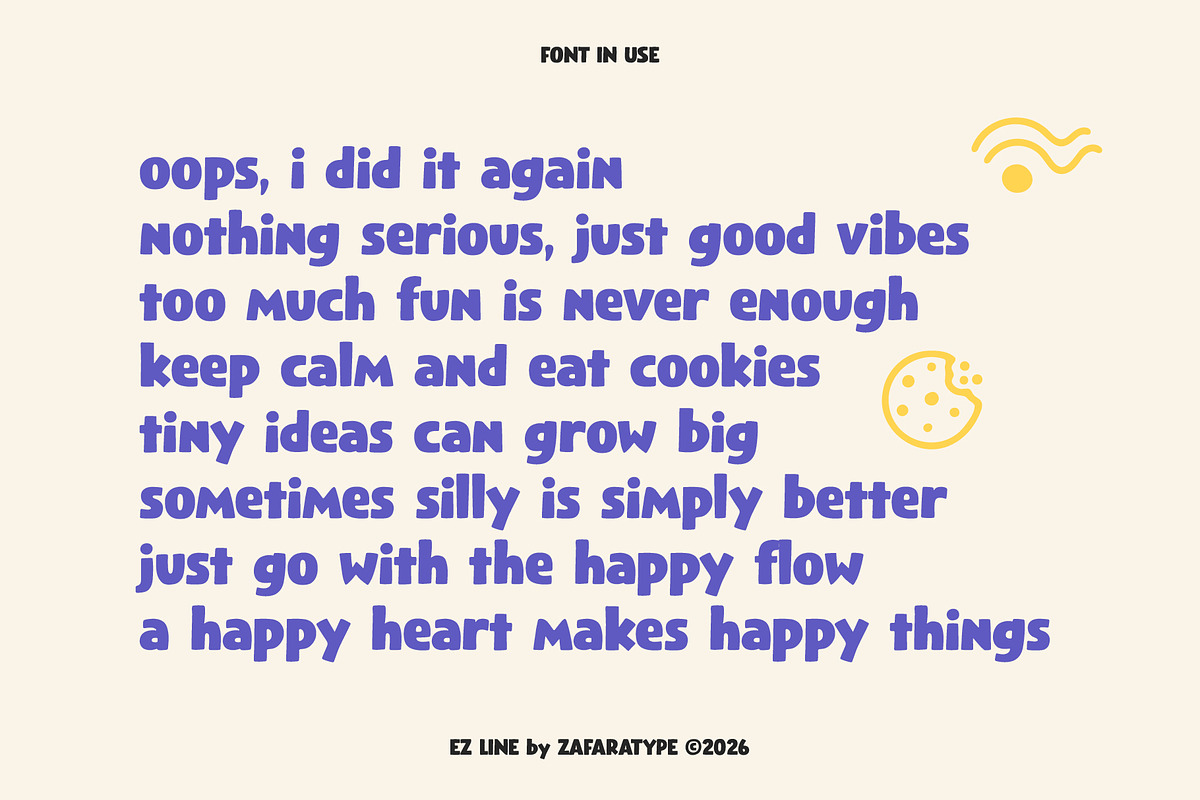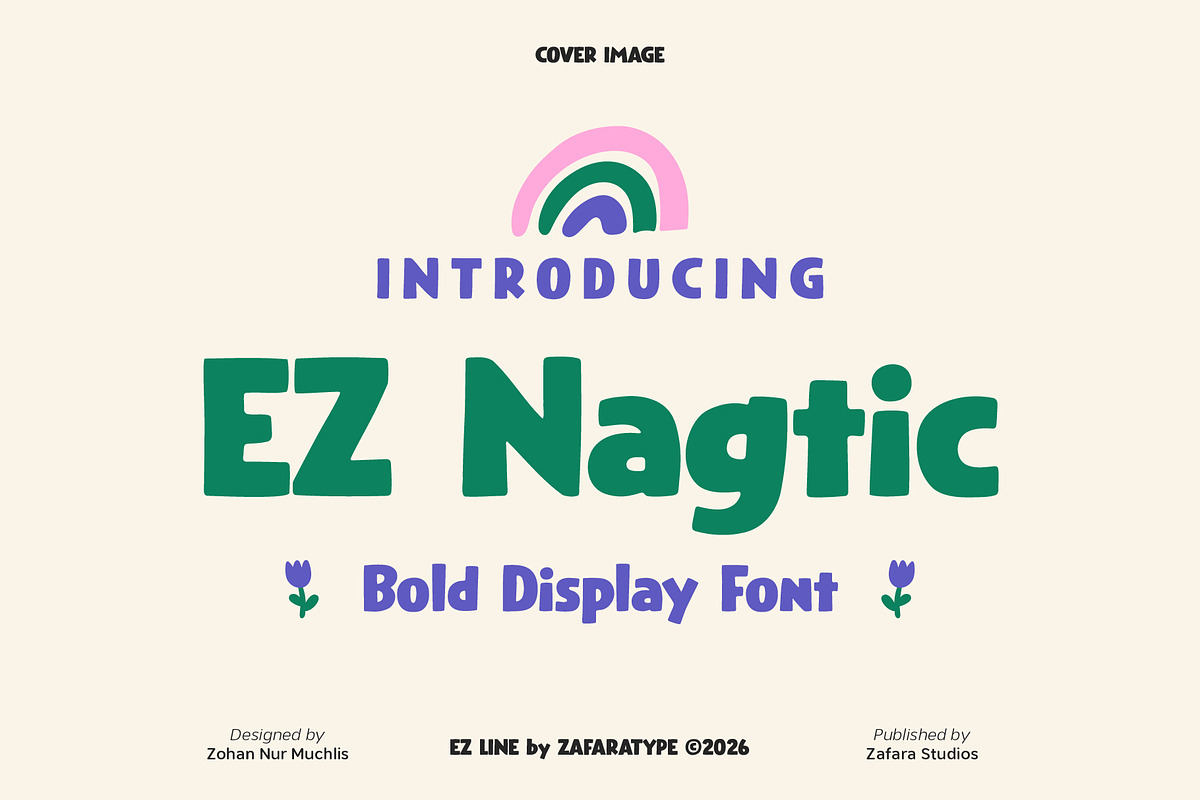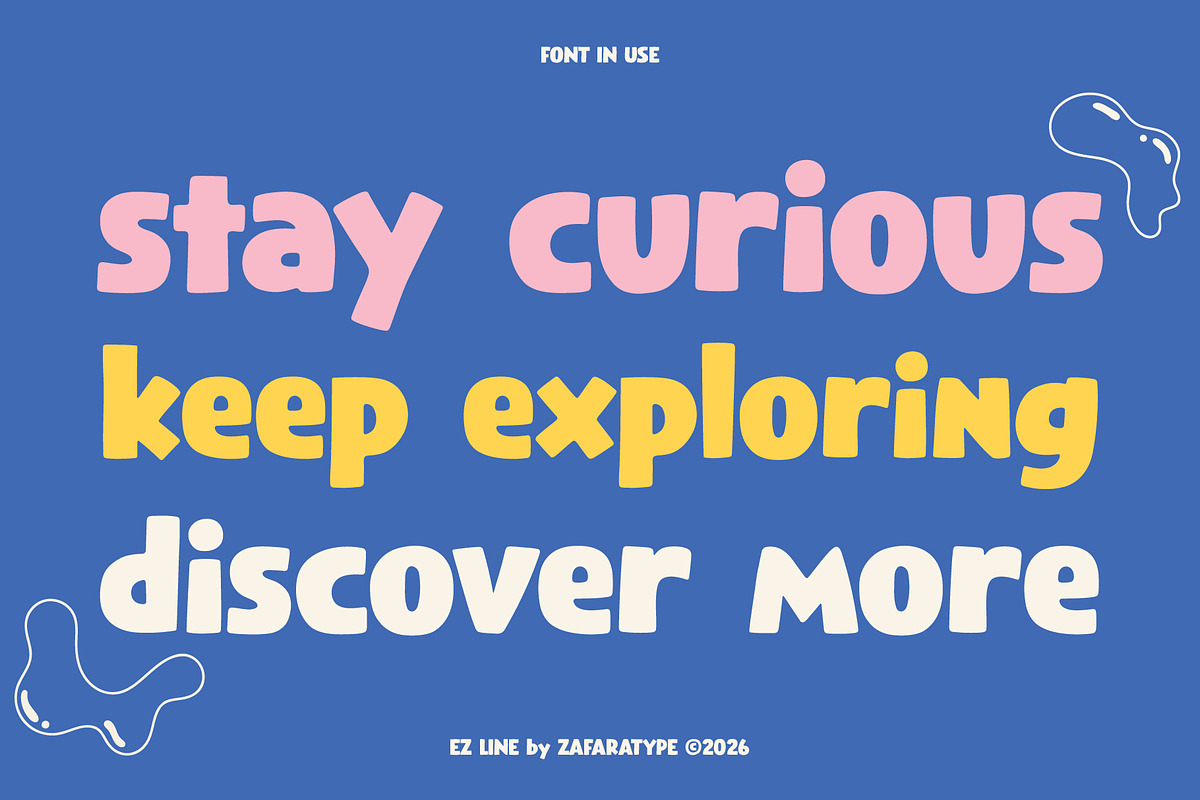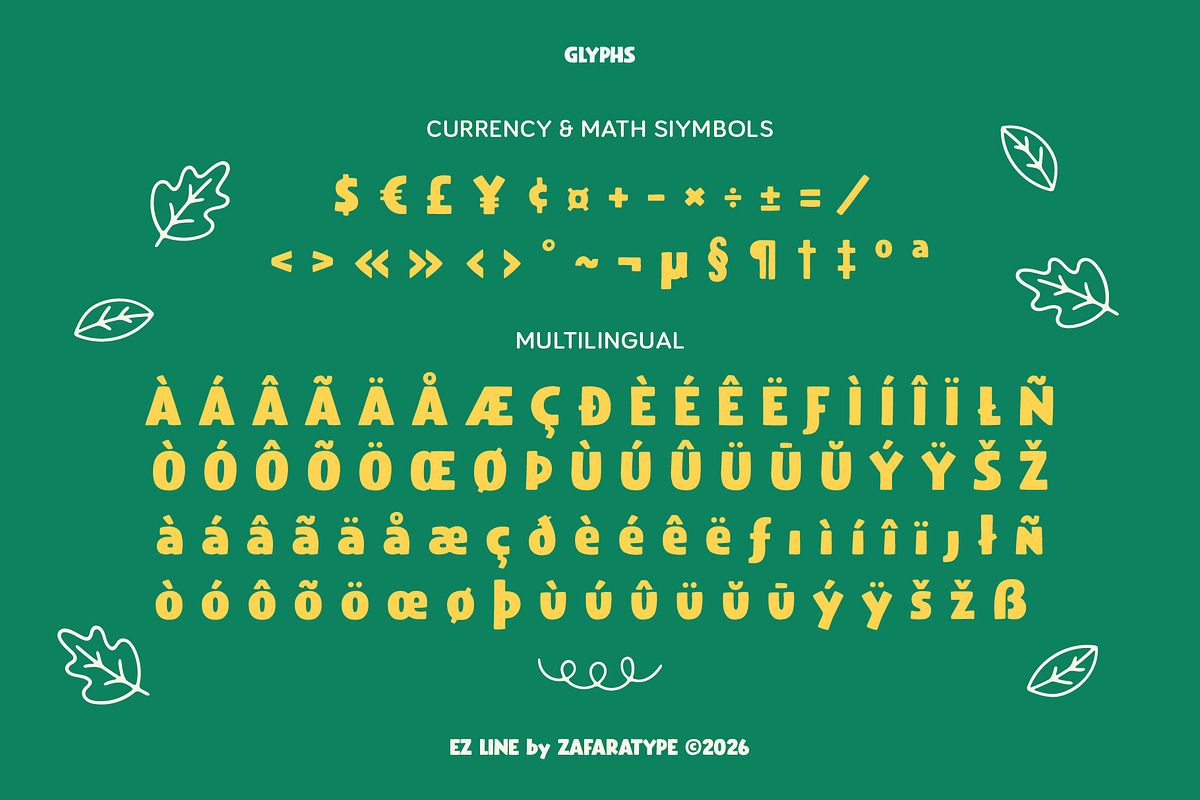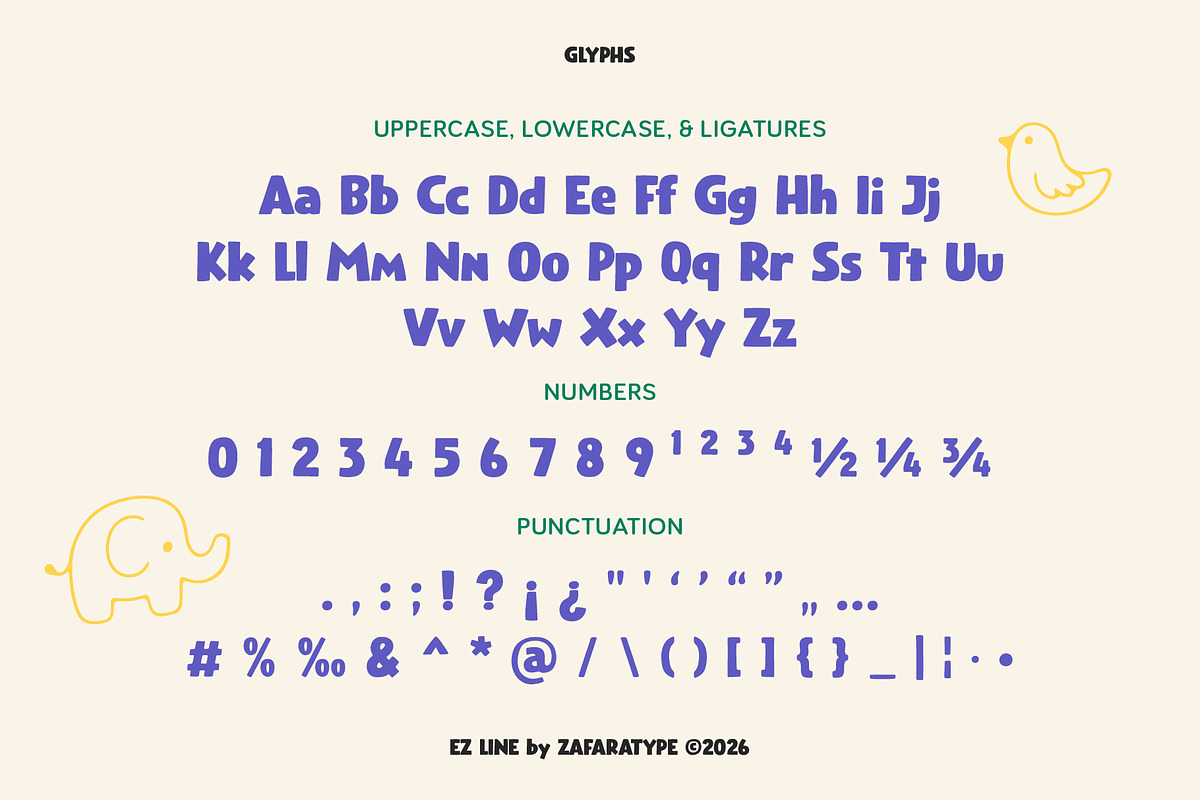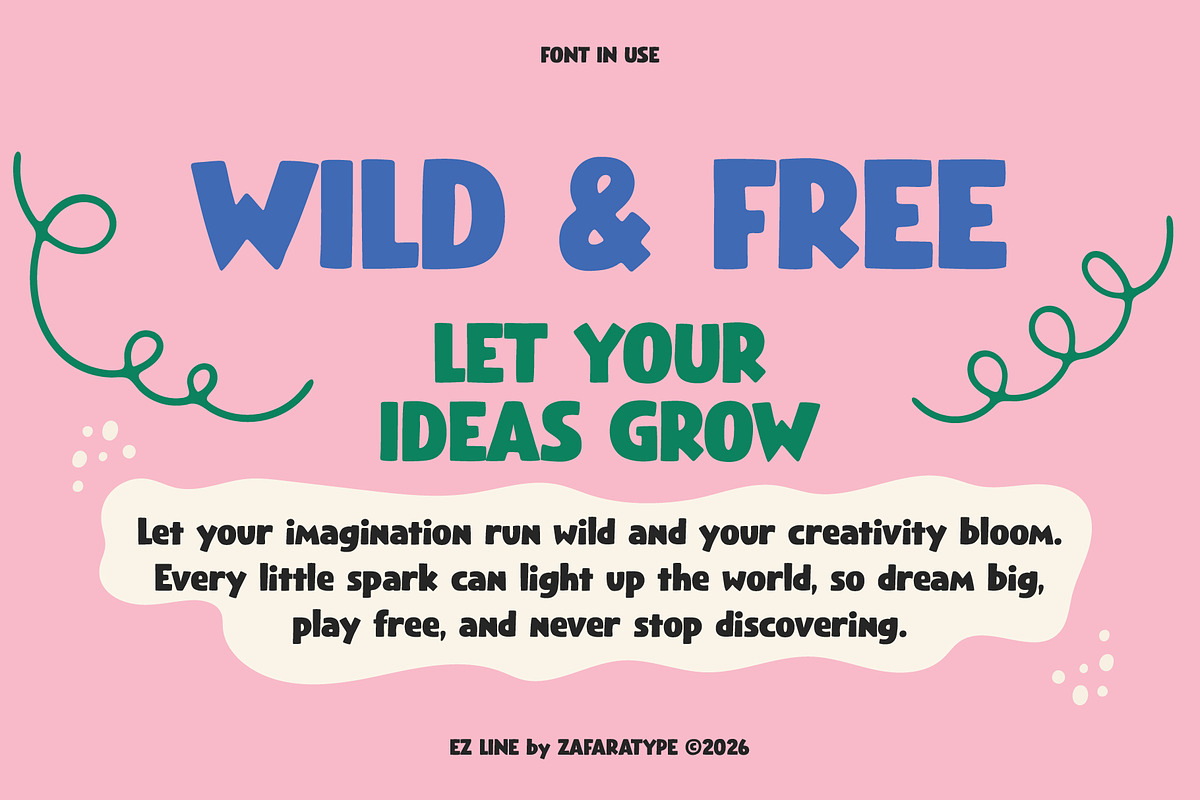
EZ Nagtic
EZ Nagtic is a bold and playful display font that blends chunky, rounded strokes with a fun and expressive personality. Featuring thick letterforms, soft curves, and naturally bouncy details, it brings a cheerful and energetic touch to your designs while keeping every word bold, friendly, and full of character.
Designed to capture the charm of playful, expressive typography, EZ Nagtic is perfect for branding, logos, packaging, posters, social media, greeting cards, quotes, children’s designs, stickers, merchandise, and other creative projects. Its bold and quirky style makes every design feel fun, casual, and memorable.
The details:
243 glyphs: Uppercase, lowercase, ligatures, numbers & punctuation, symbols & accents, multilingual support
25 languages: Afrikaans, Albanian, Basque, Catalan, Danish, Dutch, English, Estonian, Faroese, Filipino, Finnish, French, Galician, German, Icelandic, Indonesian, Irish, Italian, Malay, Norwegian Bokmål, Portuguese, Spanish, Swahili, Swedish, Zulu